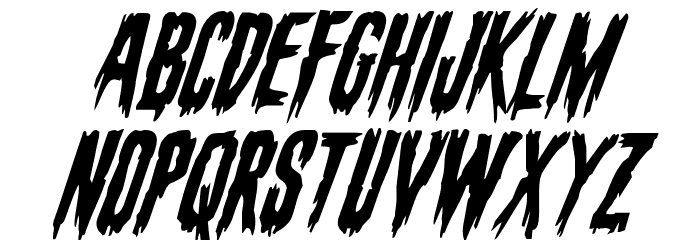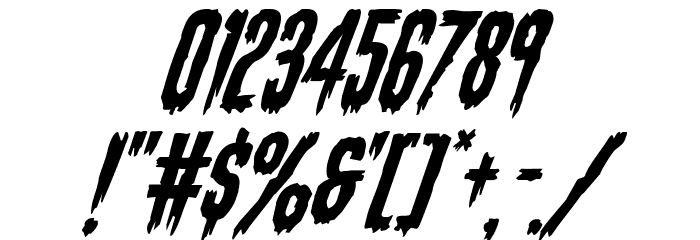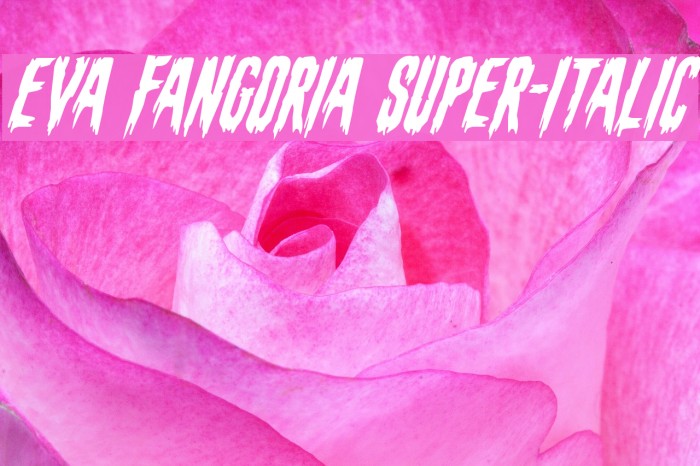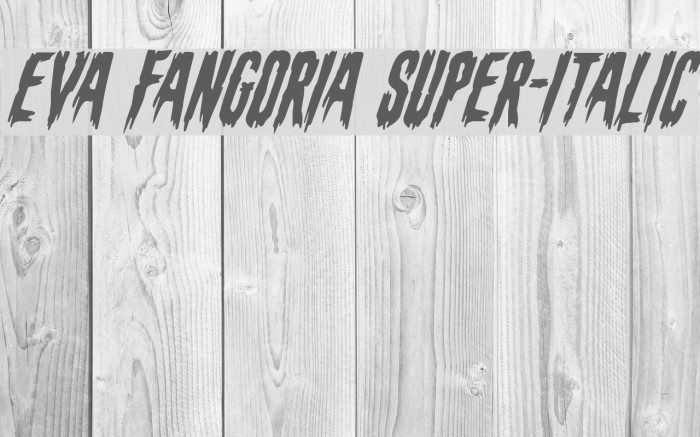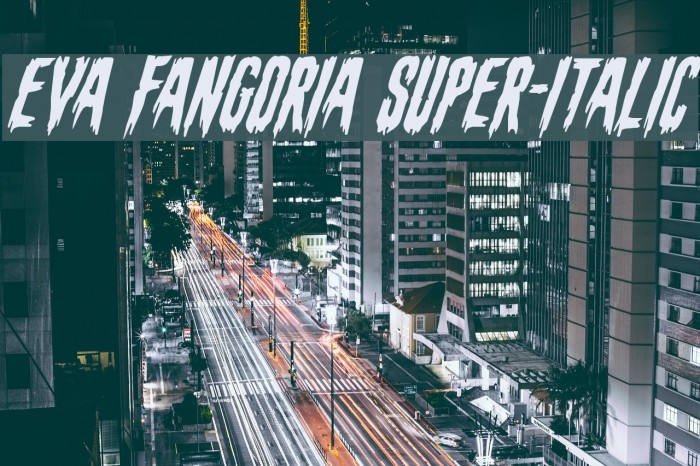
Eva Fangoria Super-Italic Font
This font features a bold and dynamic style with sharp, jagged edges that give it a fierce and energetic appearance. The characters are italicized, adding a sense of motion and urgency. The strokes are thick and uneven, creating a dramatic and eye-catching effect. This font is highly decorative, making it suitable for attention-grabbing headlines or thematic designs. The uppercase and lowercase letters maintain a consistent style, with numbers and special characters following the same bold and edgy design. The overall impression is one of intensity and boldness, perfect for projects that require a strong visual impact.
A bold, jagged, and italicized font with a fierce and dynamic style.
- Proposed Projects: Ideal for horror-themed posters, edgy branding, video game titles, or any project needing a dramatic flair.